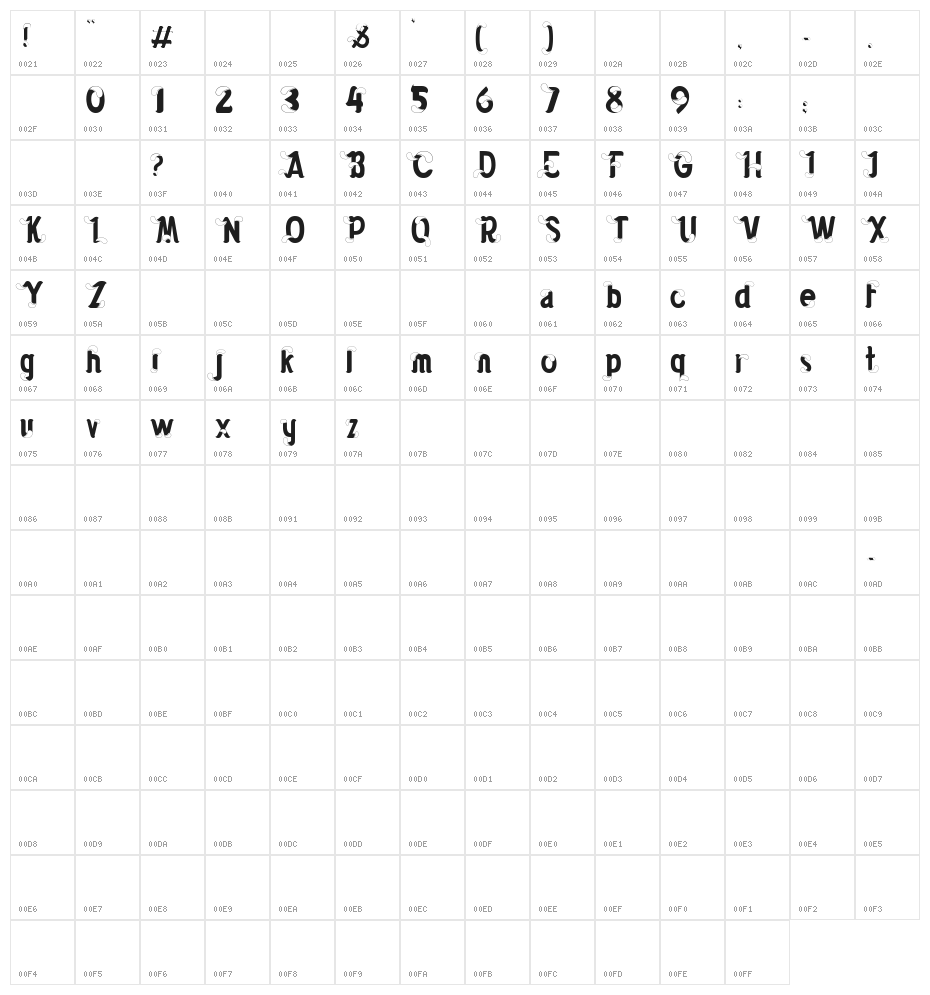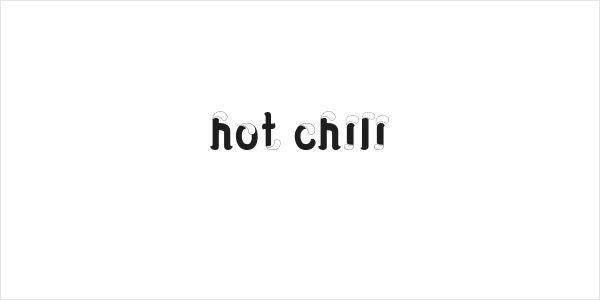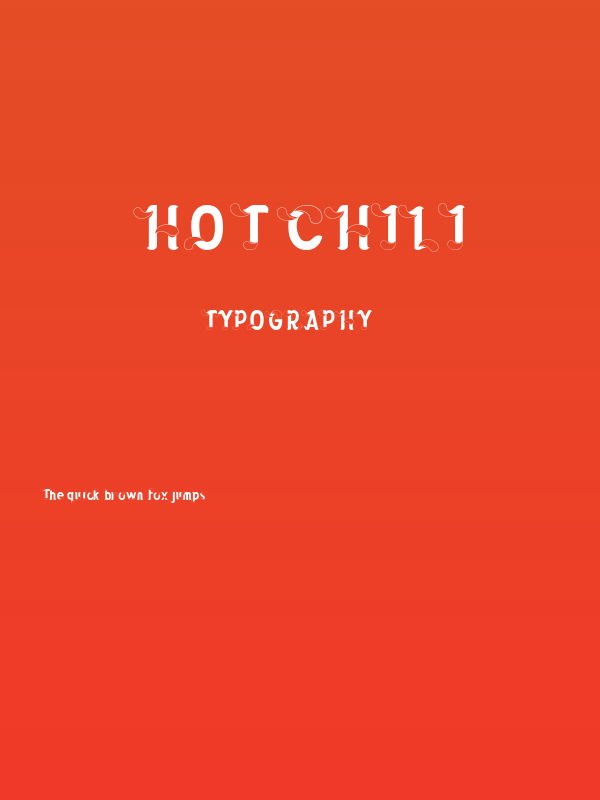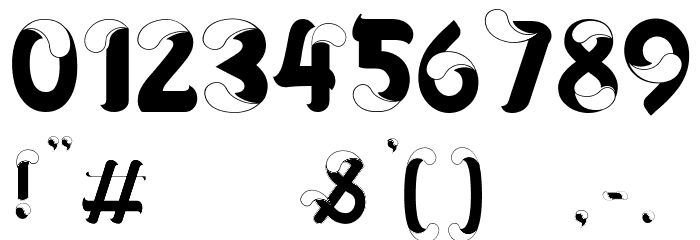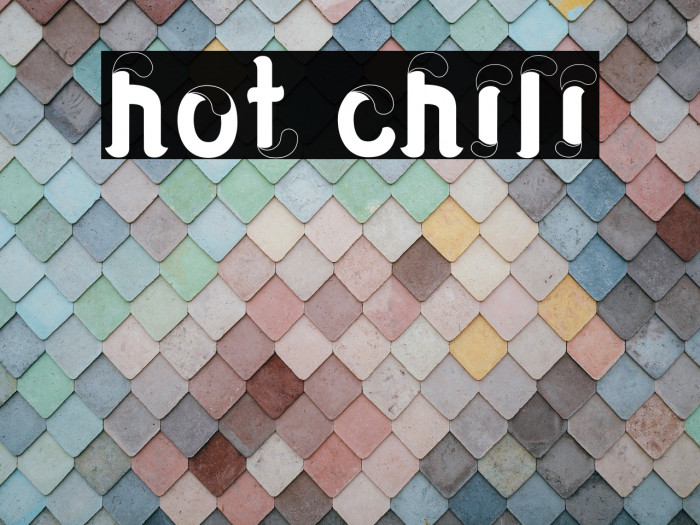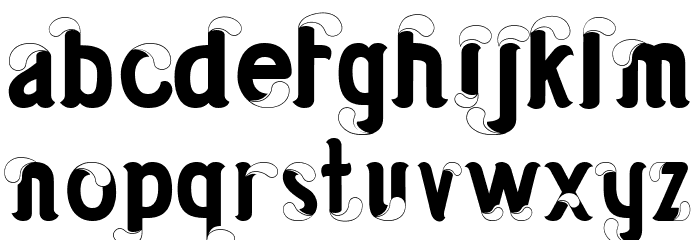
hot chili Font
hot chili Description
This font features a unique and playful design with bold, rounded characters that incorporate whimsical swirls and curls. The uppercase letters are particularly striking, with decorative elements that extend from the main strokes, giving a sense of movement and flair. The lowercase letters maintain a consistent style, with a slightly more subdued decoration that complements the uppercase set. The numerals are bold and clear, with similar decorative touches that ensure consistency across the character set. Special characters are also included, each with its own playful twist, making this font ideal for creative and eye-catching designs.
| Proposed Projects | Ideal for creative projects such as posters, invitations, and branding materials that require a fun and eye-catching typeface. |